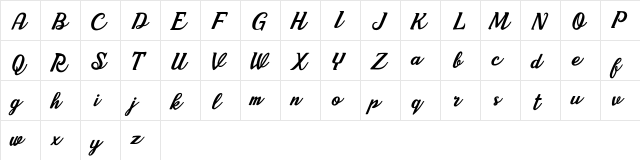
Cherry Angela Cherry Angela
| Foundry | Cundrawan (cove703) |
| Designer | Cundrawan (cove703) |
Design Context for Cherry Angela Typeface
Cherry Angela is a composed and adaptable typeface that performs quietly and consistently across a wide range of design contexts.